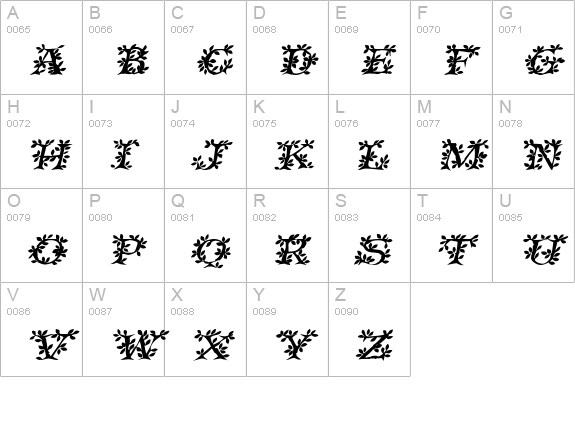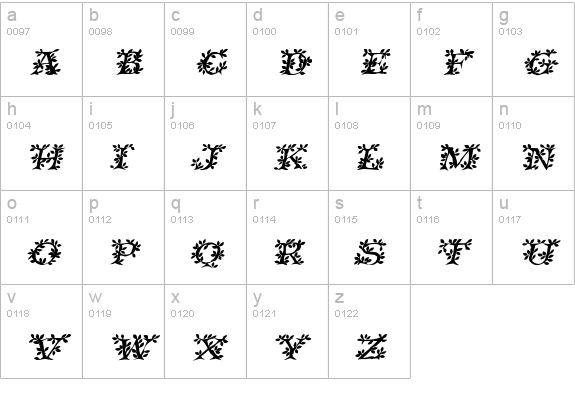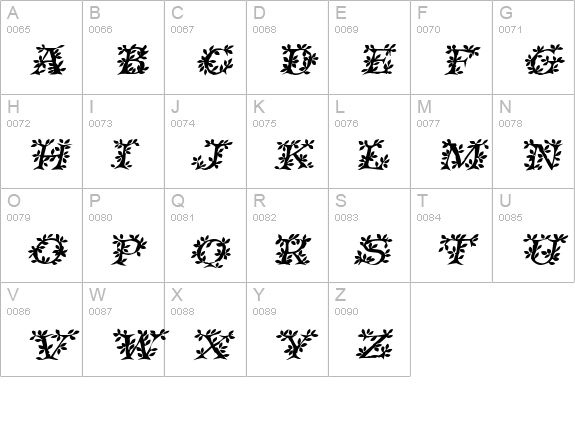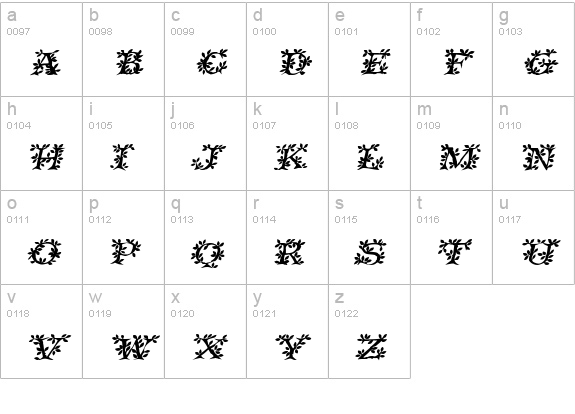
IvyDisplayCaps BoldItalic Font Details
IvyDisplayCaps BoldItalic font is a visually striking and sophisticated typeface that exudes elegance and modernity. With its bold and italic design, it adds a touch of emphasis and flair to any design project. This font is perfect for headlines, titles, logos, or any other creative endeavors that require a bold statement. The IvyDisplayCaps BoldItalic font boasts a unique combination of boldness and italics, making it truly stand out from the crowd. Its sleek and sleek curves give it a sense of dynamism and energy, making it suitable for a wide range of design applications. What sets IvyDisplayCaps BoldItalic font apart is not only its stunning design but also the fact that it is freely available to download at FontsMarket.com. This means that designers and creatives alike can easily access and utilize this font for their projects without any hassle or cost. Whether you are a professional designer or a hobbyist, this font offers unlimited possibilities to enhance your creative work. So, if you're looking for a font that combines boldness, elegance, and a touch of uniqueness, IvyDisplayCaps BoldItalic font is the perfect choice. Don't miss out on the opportunity to enhance your design projects with this freely available font at FontsMarket.com. Download it today and let your creativity soar to new heights.